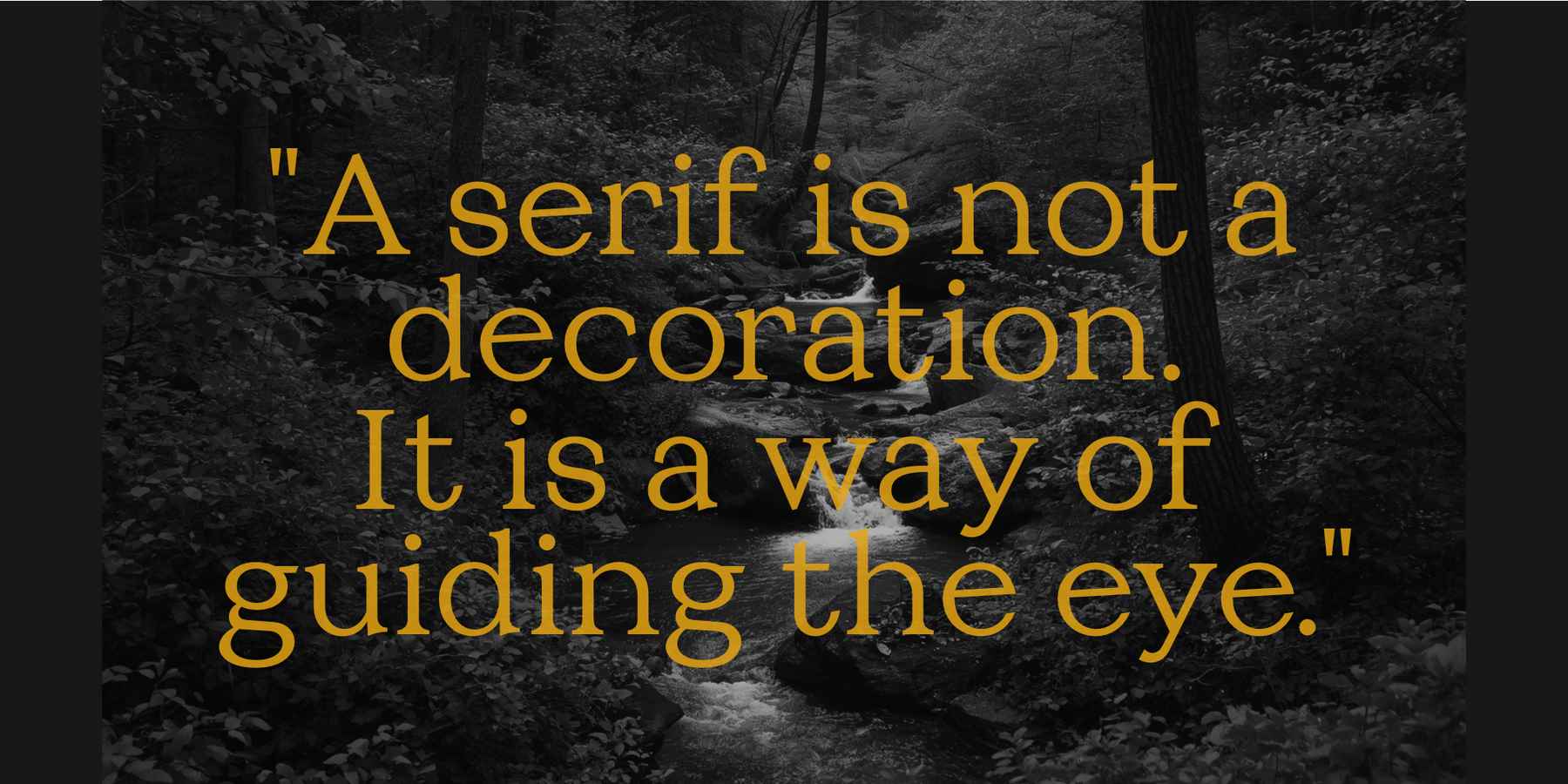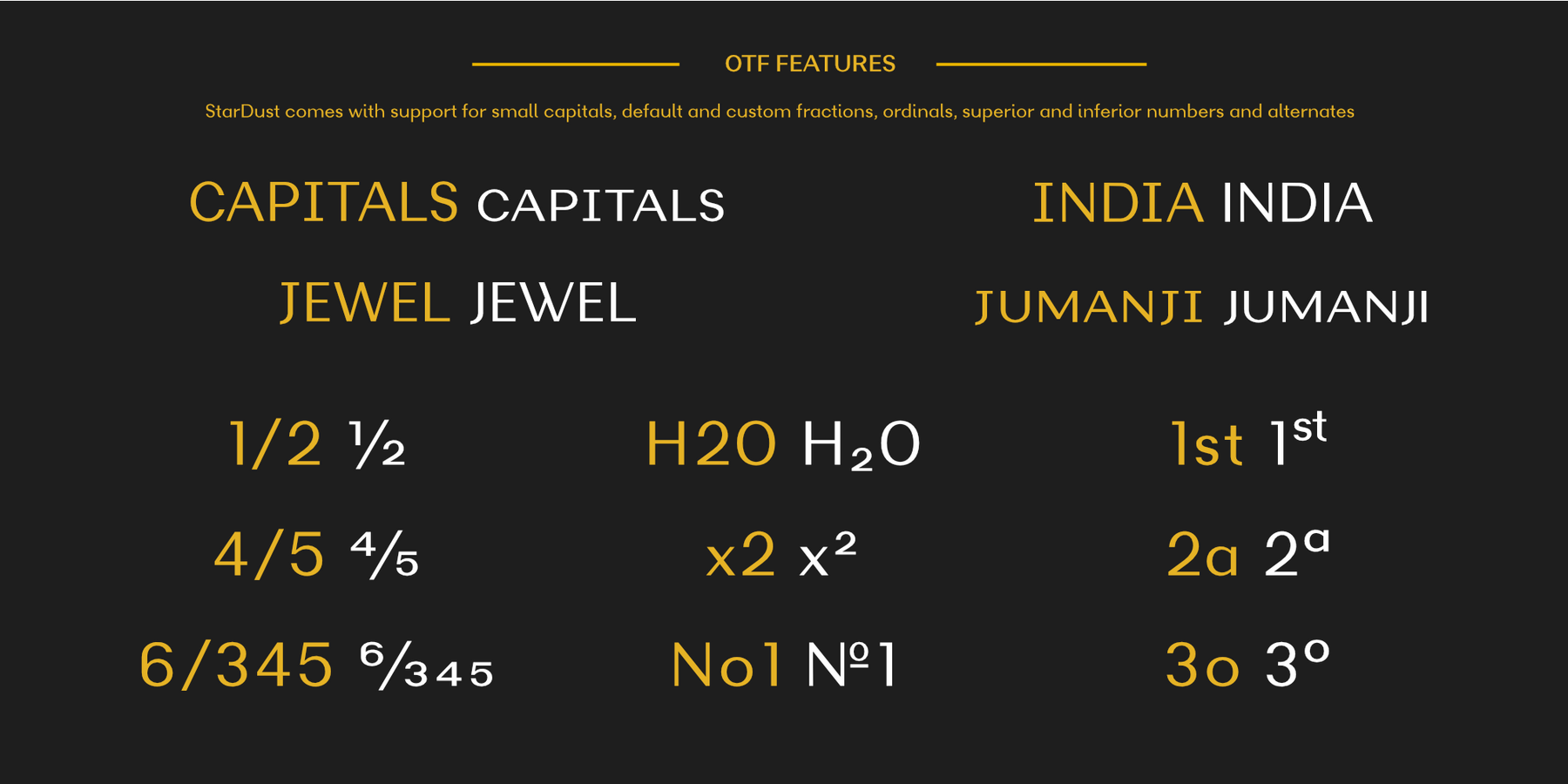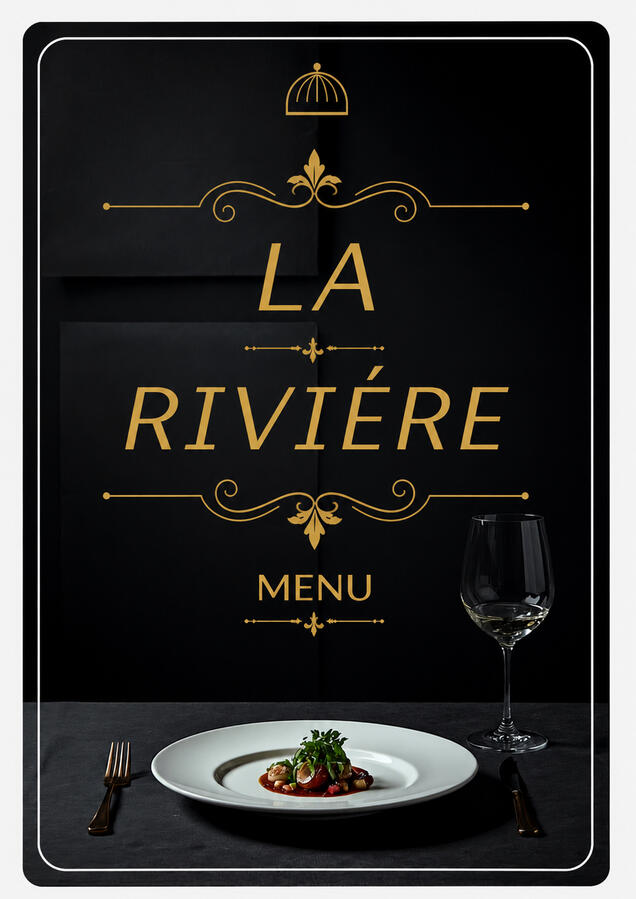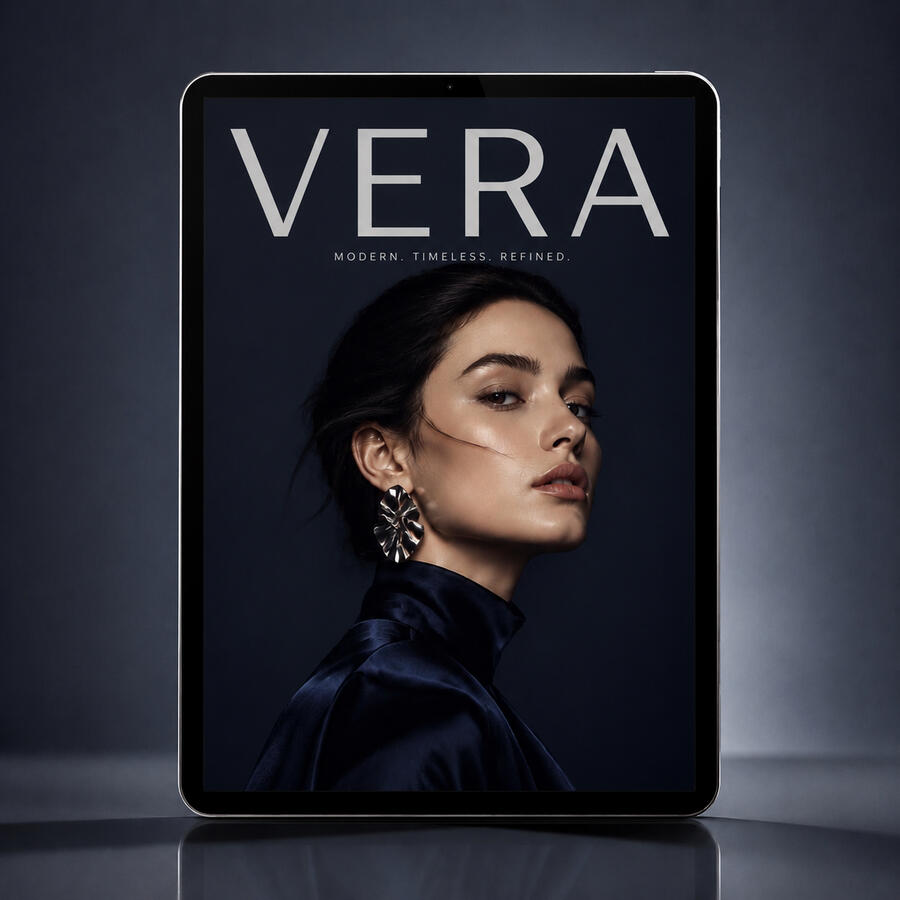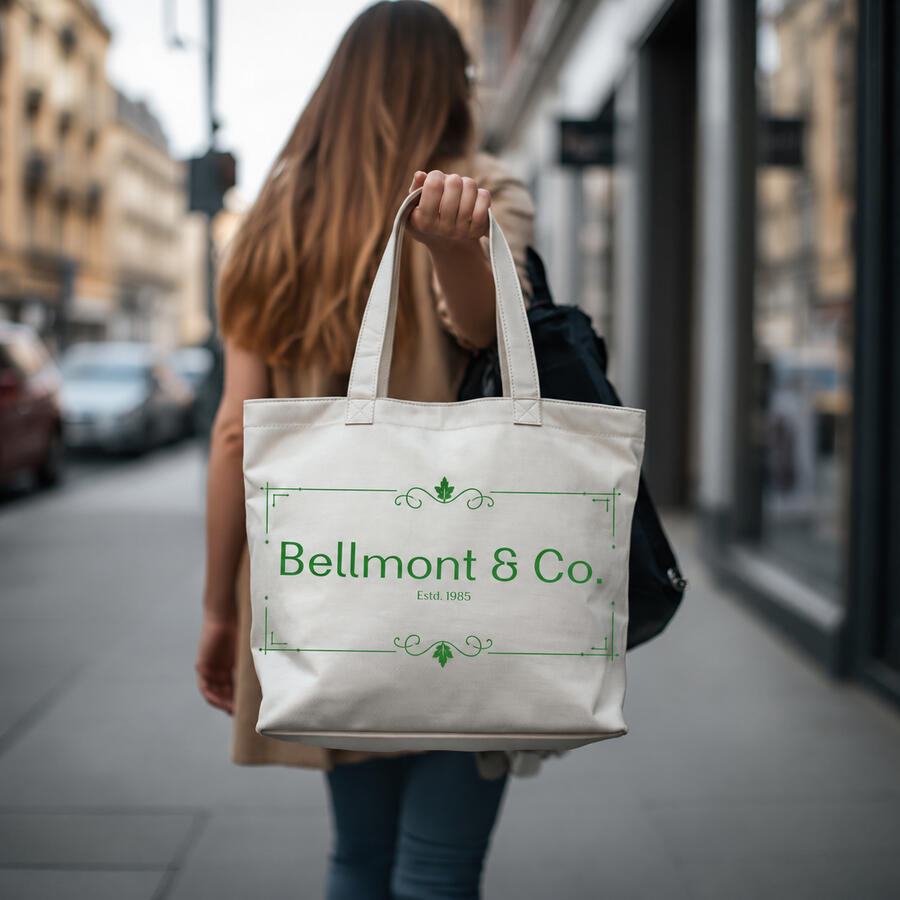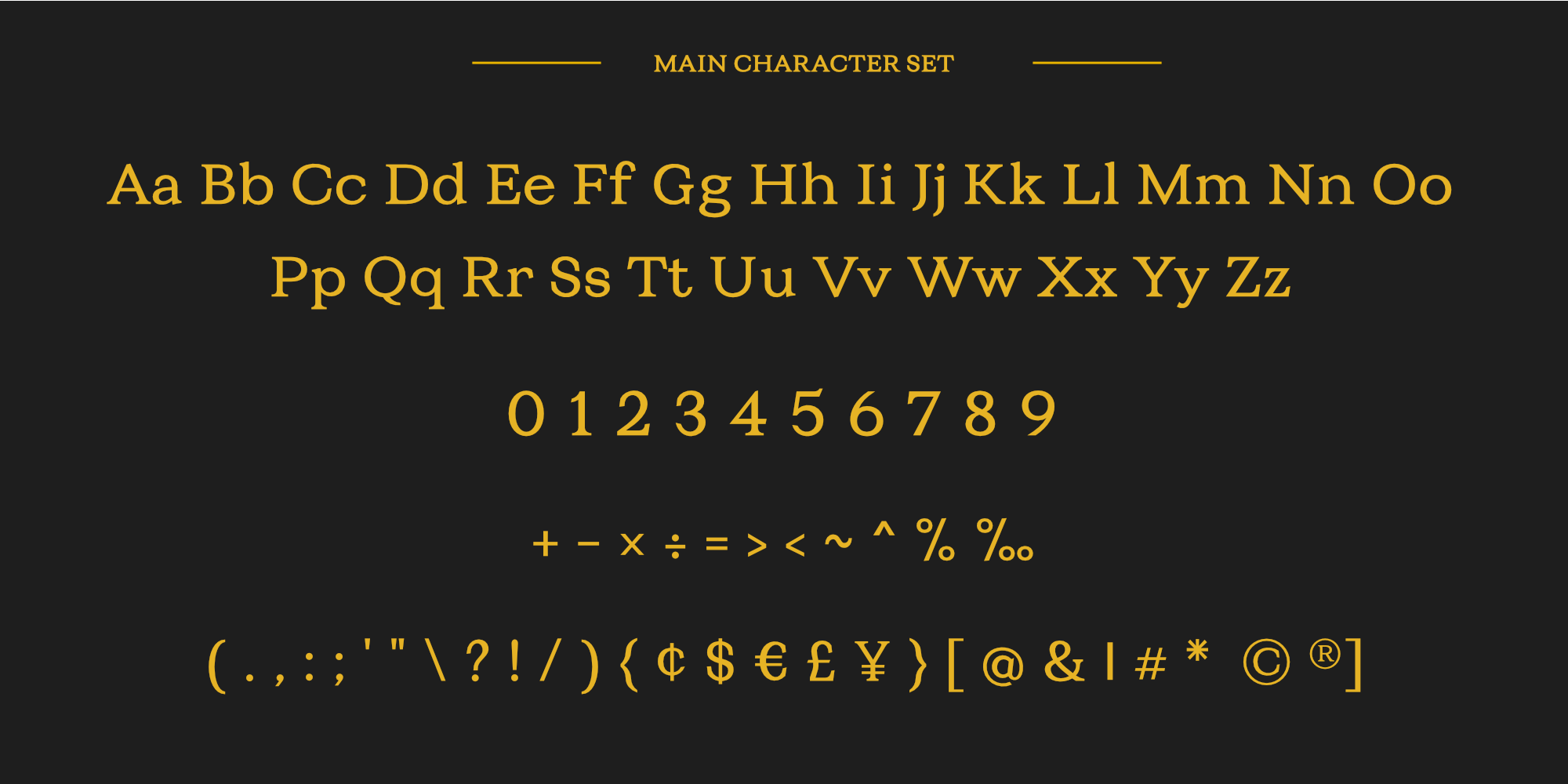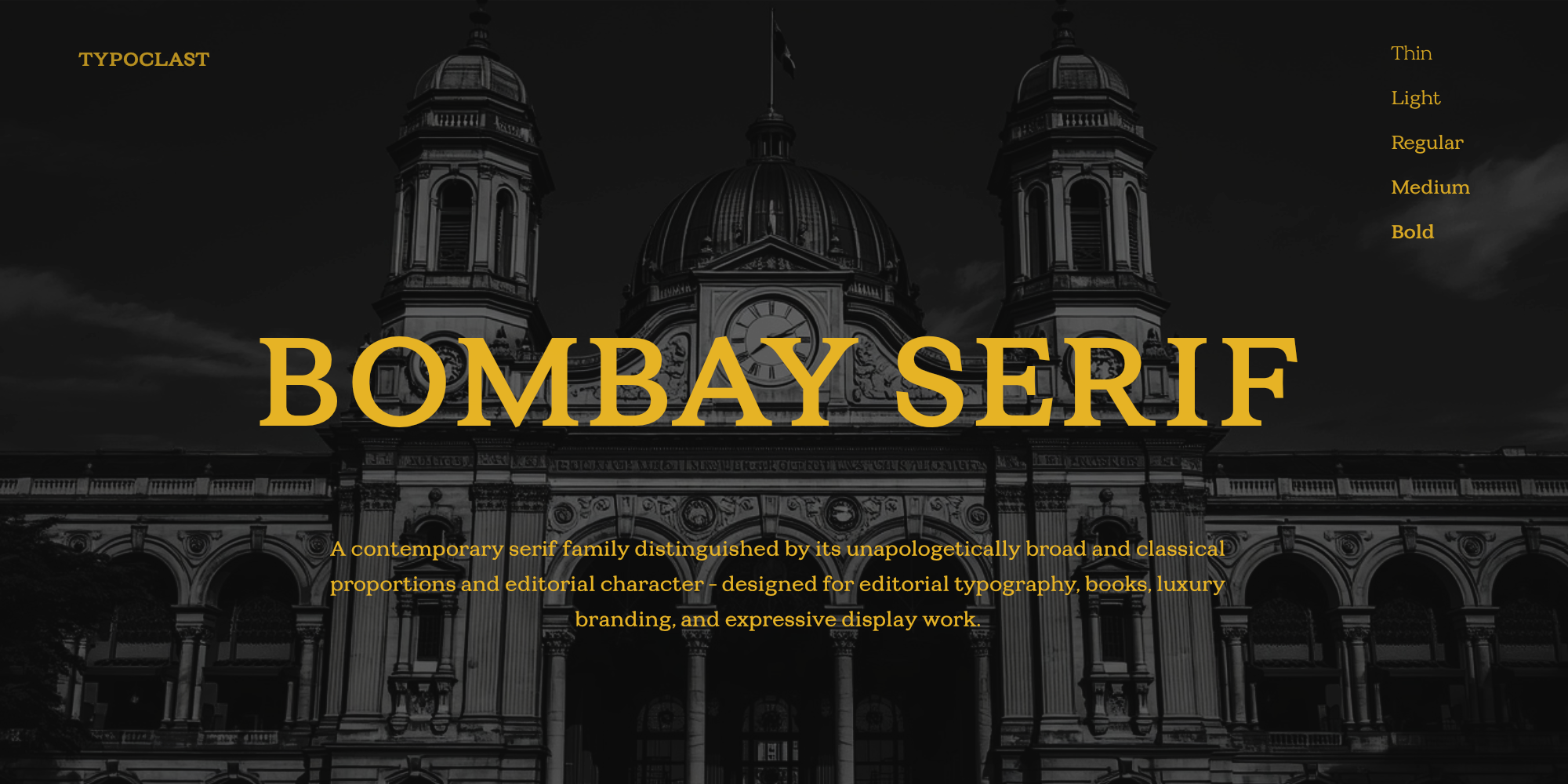
TC Bombay Serif
TC Bombay Serif is a contemporary 5-weight serif family distinguished by its unapologetically broad and classical proportions and editorial character. It is designed for publishing, branding, modern literary layouts, refined corporate branding systems and cultural applications.
Balancing classical proportions with a contemporary typographic rhythm, TC Bombay Serif delivers a commanding yet quiet editorial voice to your layouts. It brings an expressive personality to your communication with exceptional readability across a wide range of sizes.
Open counters, carefully controlled contrast, and generous spacing create a texture that remains comfortable in extended reading while retaining a distinctive presence in display settings.
The complete family includes 5 foundational weights—Thin, Light, Regular, Medium, and Bold—offering an ideal typographic hierarchy for magazines, luxury journals, exhibition graphics, and sophisticated digital interfaces.
With over 400 meticulously crafted glyphs, TC Bombay Serif includes fully manual kerning pairs, standard ligatures, mathematical symbols, and extended Latin diacritics supporting Western and South-Eastern European languages.
TC StarDust
TC StarDust is built around disciplined proportions, which gives it the kind of dependable rhythm designers need when a type system has to stretch across screens, print, packaging, and editorial design. It is polished without feeling overprocessed. I would not call it loud, and that is part of the appeal; it has confidence in the details rather than relying on novelty shapes to get attention.
For designers building a visual identity, TC StarDust works especially well when the brief asks for precision but not sterility. Use it in a wordmark exploration, then carry it into a landing page, product card, or magazine opener, and the voice stays consistent. It has extensive Latin language support, thoughtful OpenType features, and spacing that feels carefully tuned rather than merely functional.
The family’s clean structure makes it practical for body copy and interface moments, while the refined detailing gives headlines a bit more presence. That matters when a brand needs to look current for longer than one campaign cycle. Instead of forcing personality through color or motion alone, the typography can carry some of that work quietly.
What makes TC StarDust different from many other fonts in the contemporary sans serif category is how it avoids the anonymous tech-sans trap. Many modern sans families chase neutrality so hard that their letterforms start to feel interchangeable, especially at medium sizes on a website or in packaging copy. Here, the structure is still crisp, but the proportions and small refinements create a more recognizable texture on the page. Characters feel measured, not mechanical. The result is a branding font that can handle a serious grid while still giving the designer something to shape a mood around.
If your work leans toward clean systems, premium consumer branding, editorial design, or digital products that need a sharper typographic voice, TC StarDust is worth adding to your shortlist. I would reach for it when a project calls for modernity without the usual blank-corporate aftertaste.